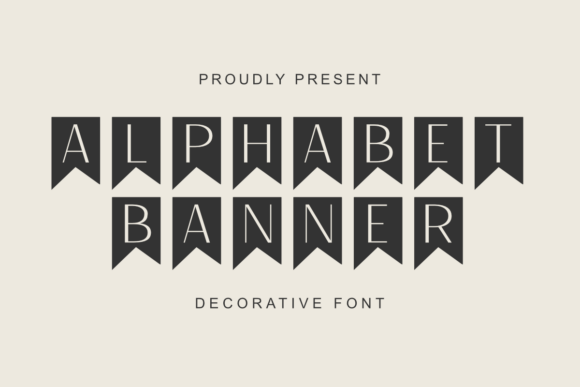
Alphabet Banner Font: A Unique Decorative Font for Creative Minds
In the world of typography, fonts play a crucial role in conveying messages, expressing creativity, and adding personality to designs. Among the numerous fonts available, the Alphabet Banner Font stands out as a cool decorative font that has gained popularity among crafty individuals and designers. This font is particularly unique because it incorporates letter shapes into a distinctive banner shape, making it an excellent choice for various creative projects.
What is Alphabet Banner Font?
Alphabet Banner Font is a decorative font that features letter shapes merged into a banner-like design. This font is perfect for those who enjoy crafting, DIY projects, or have a passion for creative expression. The font’s distinctive style allows users to add a personal touch to their designs, making it ideal for various applications.
Creative Uses of Alphabet Banner Font
The versatility of Alphabet Banner Font makes it suitable for a wide range of creative projects. Here are some ideas to get you started:
- Stickers: Use Alphabet Banner Font to create custom stickers for laptops, water bottles, or any other surface.
- Logos and Branding: Add a personal touch to your logo or branding materials with this unique font.
- Apparel and T-Shirts: Design eye-catching t-shirts, hoodies, or hats with Alphabet Banner Font.
- Wall Art: Create stunning wall art, posters, or prints featuring your favorite quotes or phrases.
- Tattoos: This font can serve as inspiration for tattoo designs, adding a personal touch to body art.
- Baby Clothes: Design adorable onesies, baby blankets, or nursery decor with Alphabet Banner Font.
- Initials: Use the font to create custom monograms or initials for personalized gifts.
Benefits of Using Alphabet Banner Font
Alphabet Banner Font offers several benefits that make it a popular choice among designers and crafty individuals:
- Unique Design: The font’s distinctive banner shape sets it apart from other fonts, adding a touch of personality to designs.
- Versatility: Alphabet Banner Font can be used for a wide range of creative projects, from digital designs to physical products.
Tips for Using Alphabet Banner Font
To get the most out of Alphabet Banner Font, consider the following tips:
- Experiment with Colors: Play with different color schemes to find the perfect combination for your design.
- Mix and Match: Combine Alphabet Banner Font with other fonts or design elements to create a unique look.
- Pay Attention to Size: Adjust the font size to ensure it fits your design requirements and maintains its visual impact.
In conclusion, Alphabet Banner Font is a unique and versatile decorative font that offers endless creative possibilities. Its distinctive banner shape and ease of use make it an excellent choice for crafty individuals, designers, and anyone looking to add a personal touch to their designs. With its wide range of applications, from stickers to wall art, Alphabet Banner Font is sure to inspire creativity and bring your ideas to life.